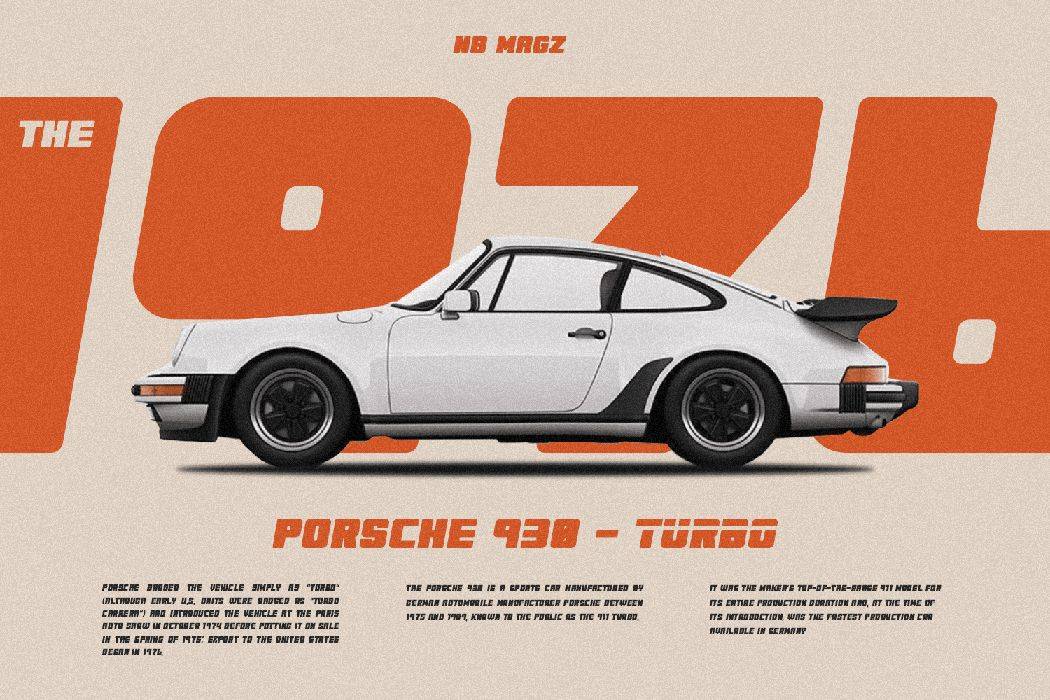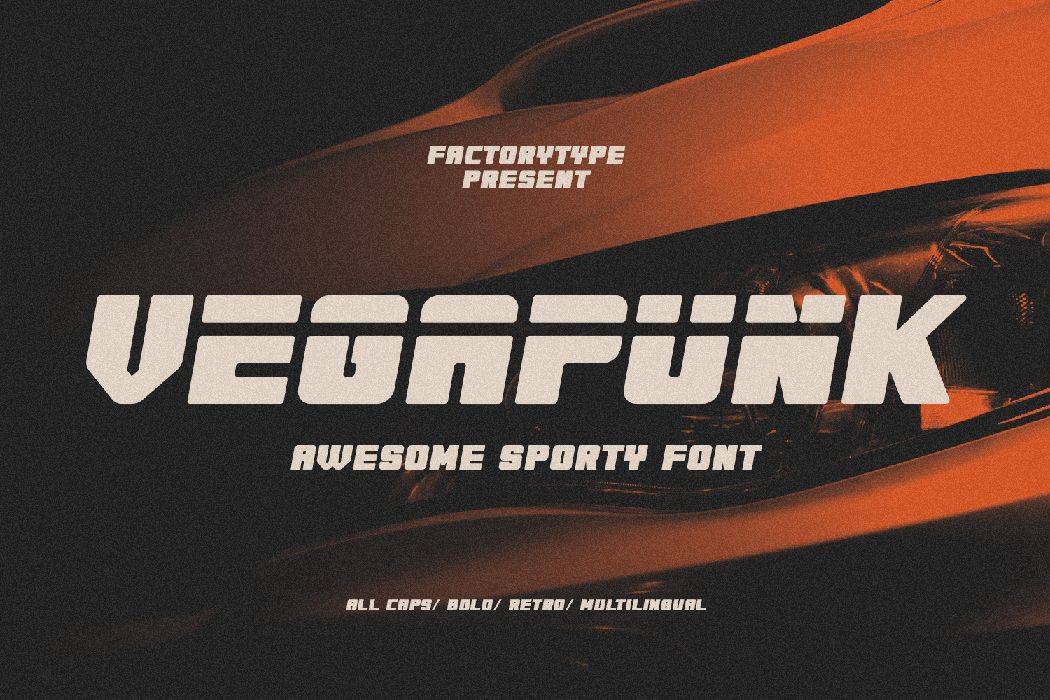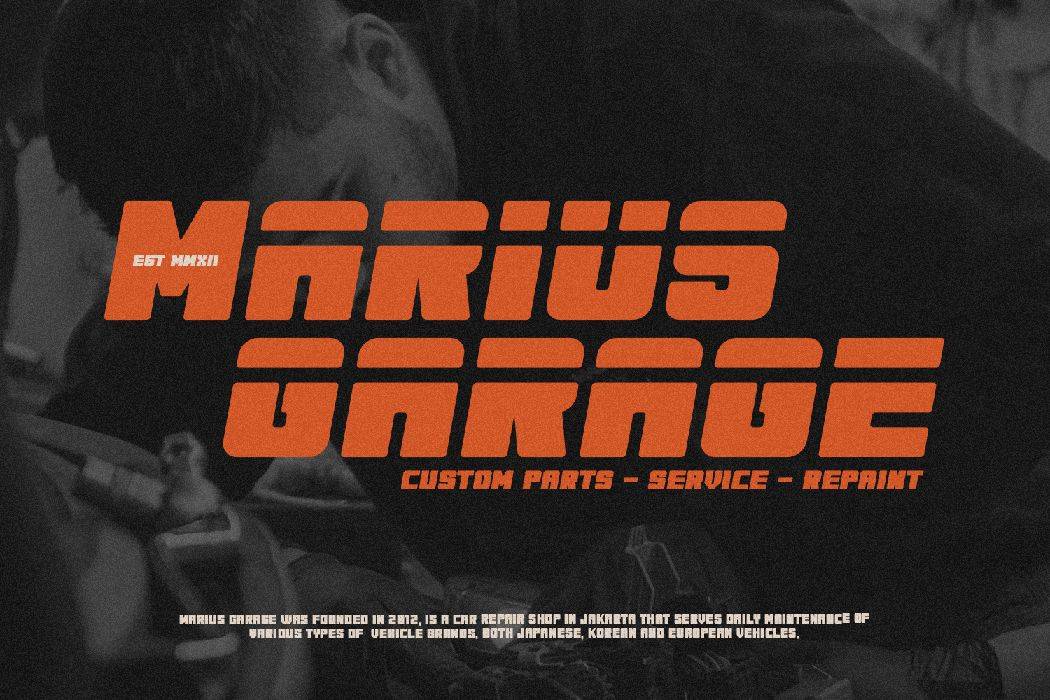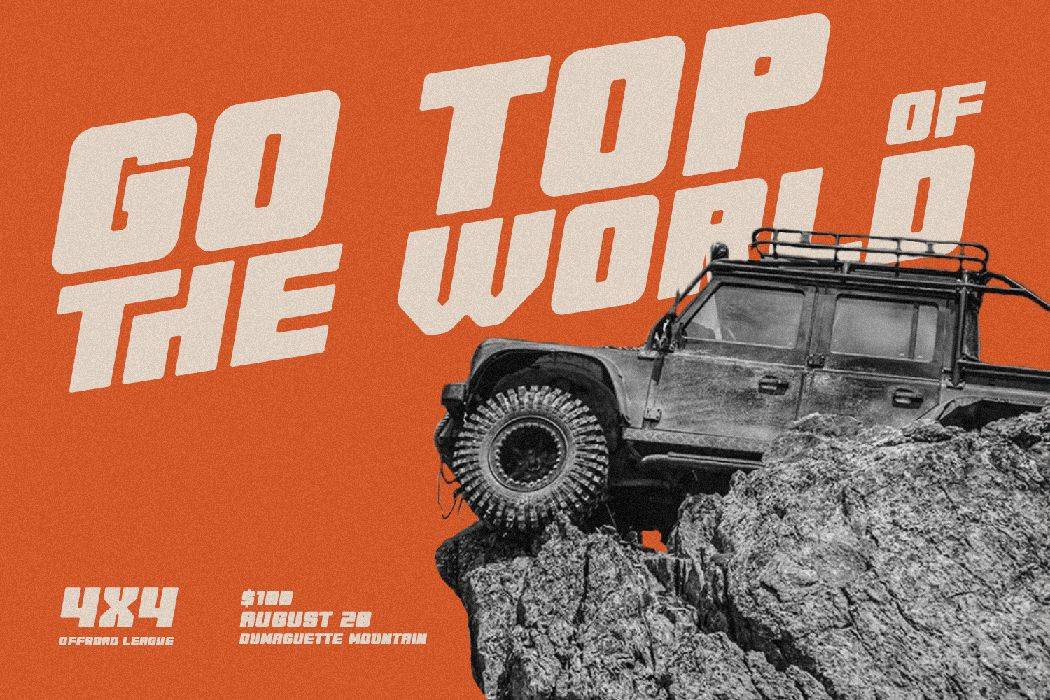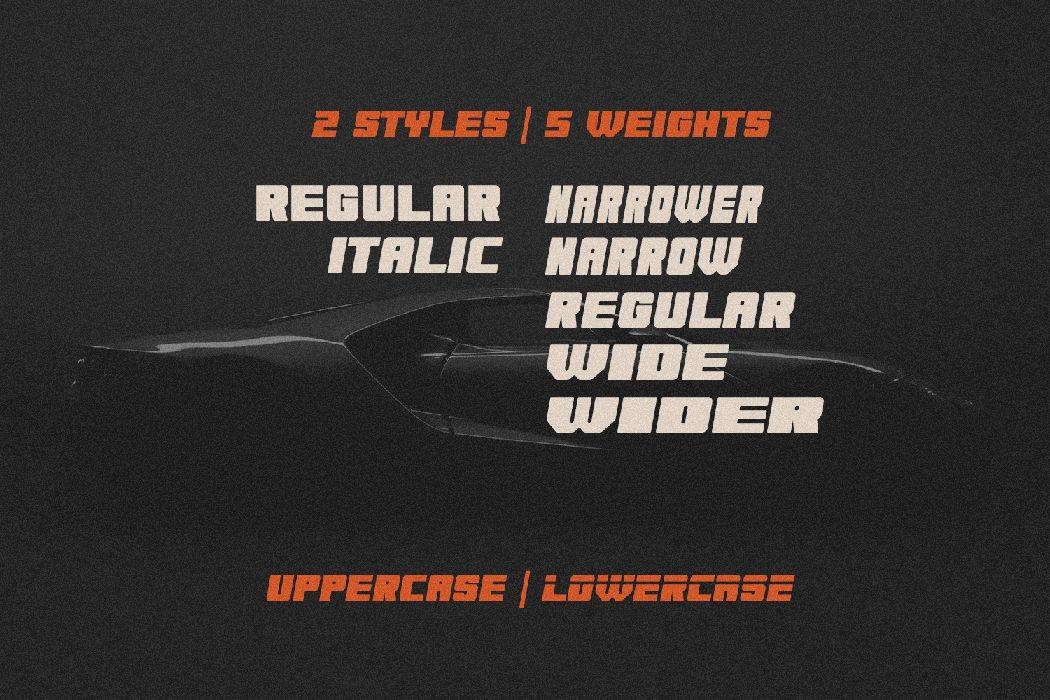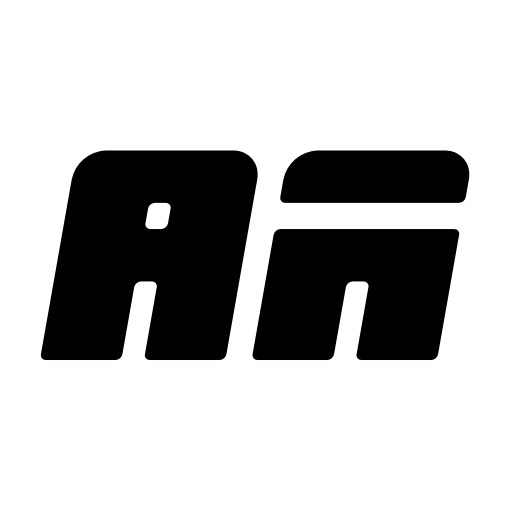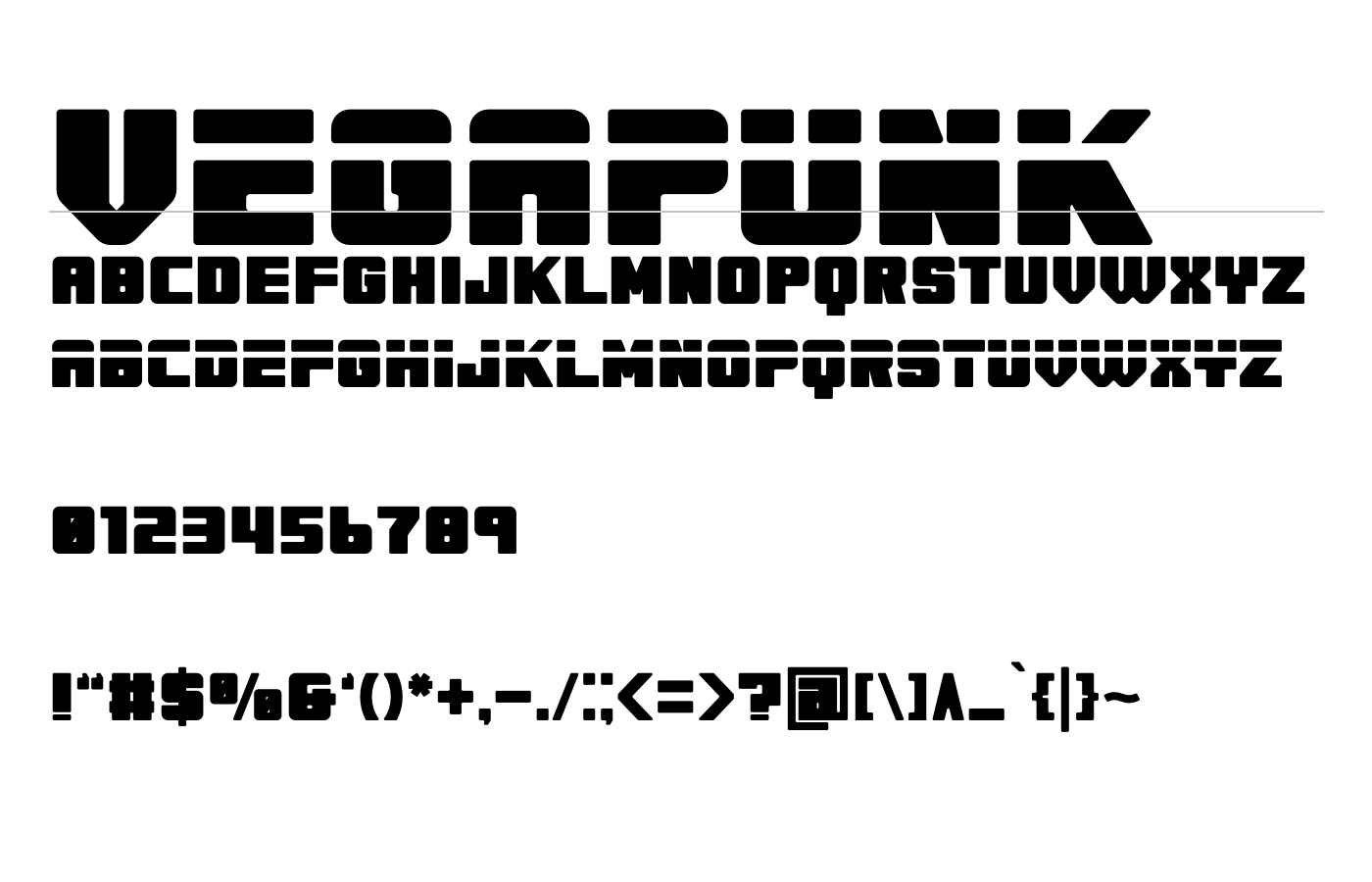
Vegapunk is a bold, geometric sans serif font with a strong, futuristic vibe. Its thick, blocky letterforms with minimal curves and sharp angles create a sturdy and tech-inspired look, making it ideal for striking headlines, logos, or branding projects seeking a modern, industrial feel. This font works best where impactful, statement-making typography is needed to grab attention and convey innovation or strength.
Vegapunk Font
About Vegapunk Font